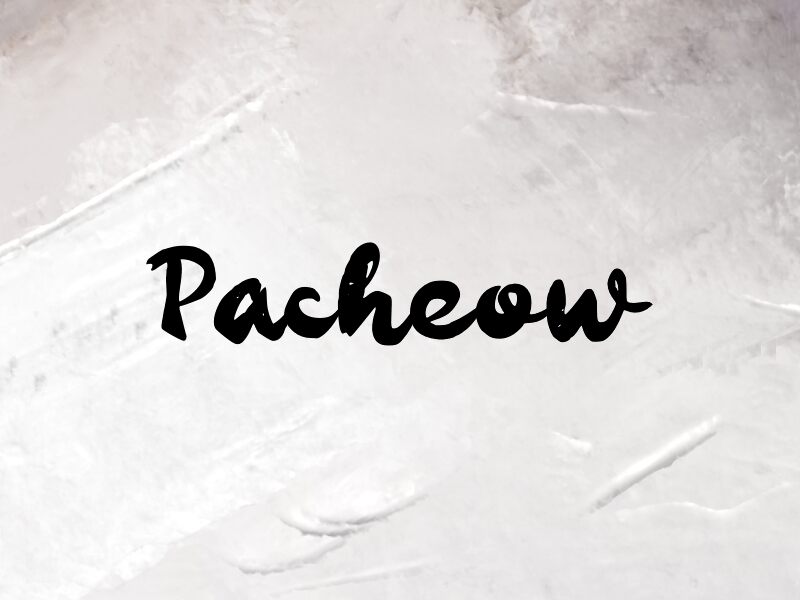
Pacheow font by Wep is a free brush font that captures the raw, artistic energy of hand-painted brushstrokes. Its romantic and expressive look makes it an inviting and lively addition to any design project. The informal and personal character of this contemporary font adds an artistic edge to each word, transforming even the simplest text into an engaging visual experience.
Explore Pacheow in product packaging, advertisement posters, magazine covers, and greeting card designs. Use it in digital projects such as social media posts and website headlines. Or print it on business cards, flyers, or logo designs for extra branding individuality.
Pacheow is a stylish and modern free font that perfectly complements various design projects. This versatile typeface is ideal for branding, advertisements, and any digital artwork that requires a touch of elegance. Its clean lines and unique character make it a standout choice for designers seeking to elevate their work.